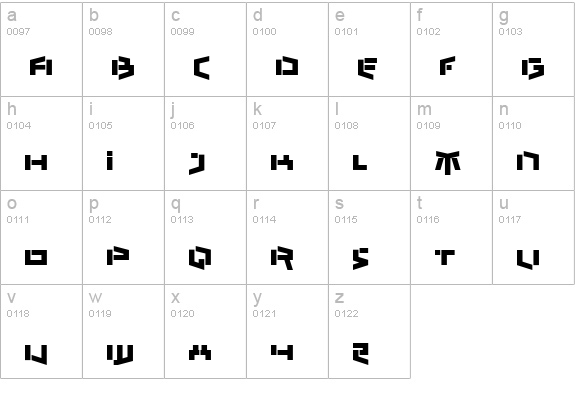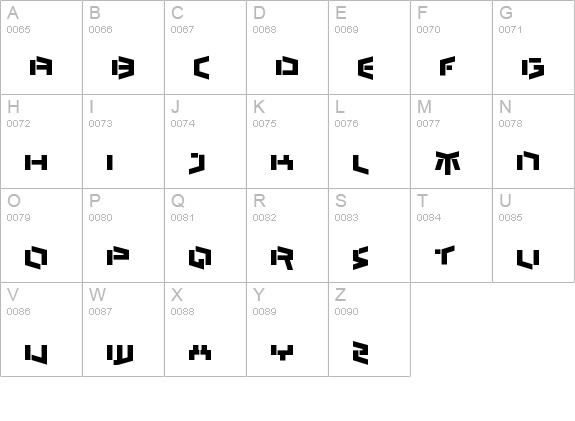
Bedlam Remix font is a modern and edgy typeface that exudes a rebellious and energetic vibe. With its bold strokes and sharp angles, this font is perfect for making a statement in various design projects. Whether you're creating posters, flyers, or social media graphics, Bedlam Remix will add a touch of urban flair to your work. What sets Bedlam Remix apart is not just its striking appearance, but also the fact that it is completely free to download. That's right, you can get your hands on this unique font at no cost at FontsMarket.com. So go ahead and unleash your creativity with Bedlam Remix font - the perfect choice for those looking to add a touch of chaos and excitement to their designs.